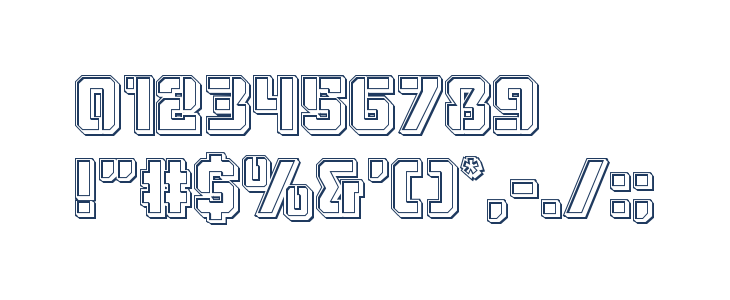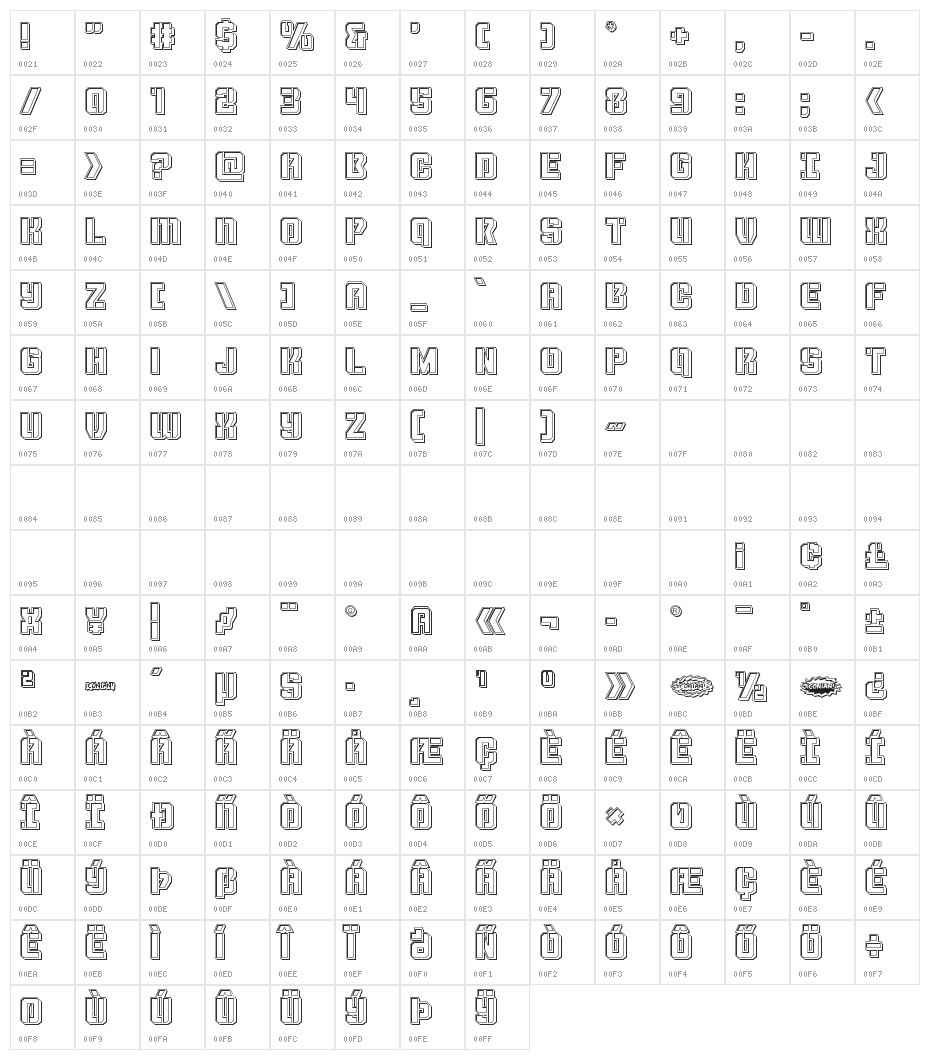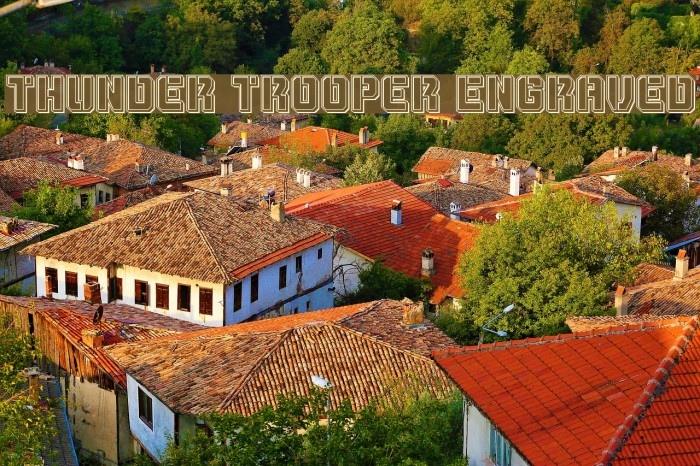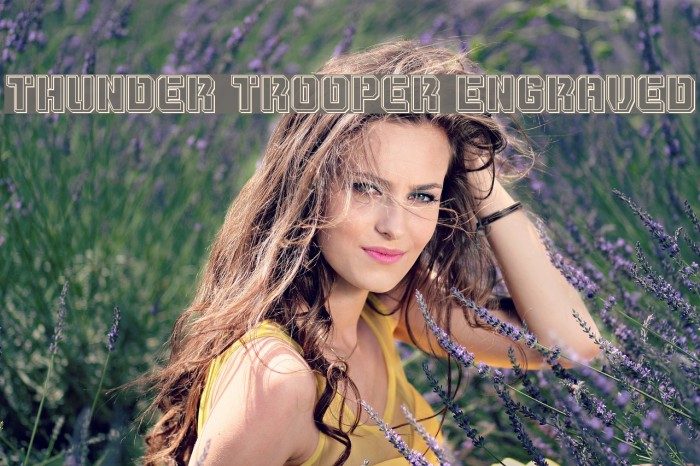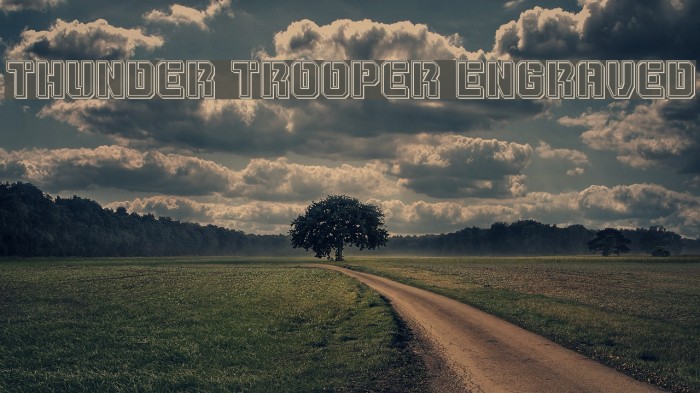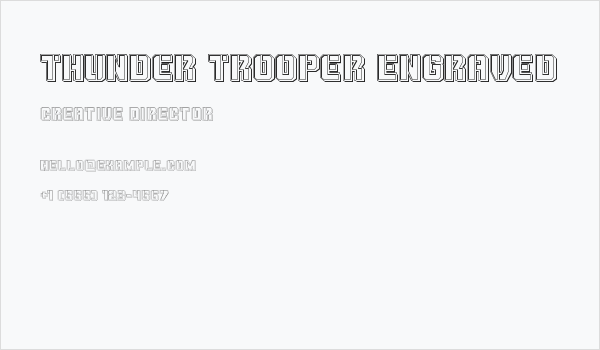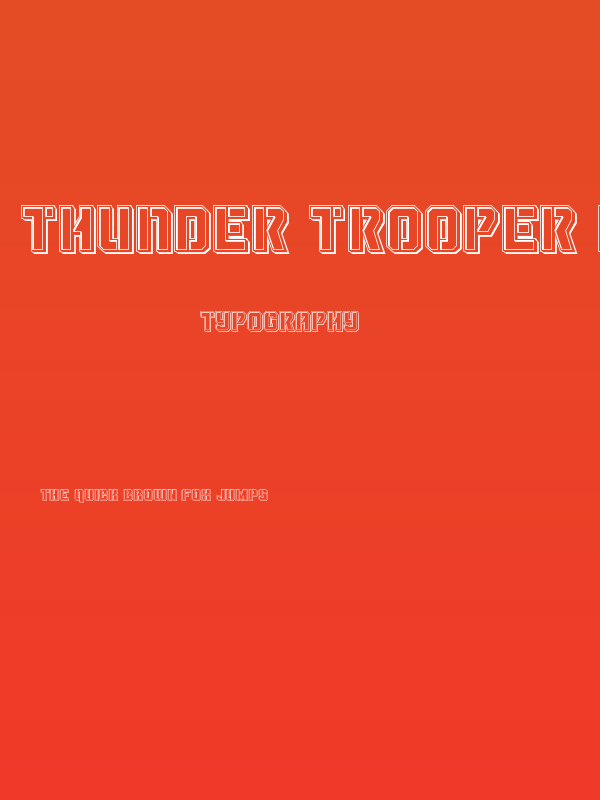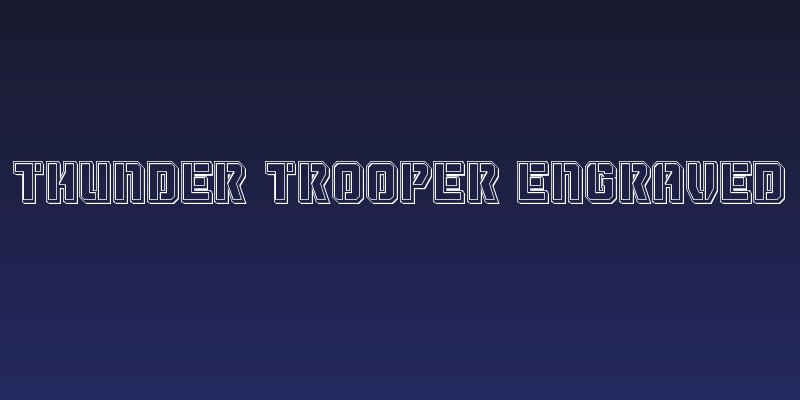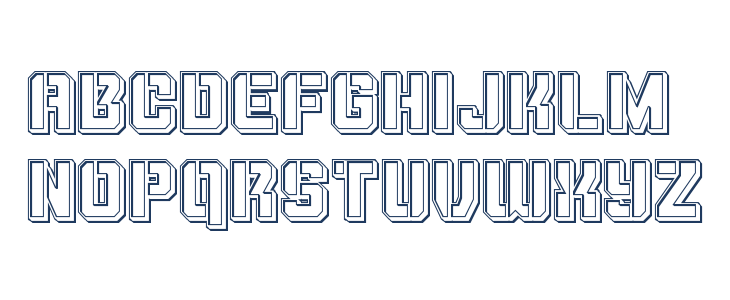
Thunder Trooper Engraved Font
Thunder Trooper Engraved Description
This font features a bold, geometric design with a three-dimensional engraved effect. Each character is outlined with a double line, creating a sense of depth and structure. The uppercase and lowercase letters maintain a consistent blocky style, emphasizing straight lines and sharp angles. The numerals and special characters follow the same design principles, ensuring uniformity across the entire set. This font's unique style is both modern and futuristic, making it ideal for projects that require a strong visual impact.
| Overall Style | Futuristic, Modern |
| Proposed Projects | Ideal for video game titles, sci-fi movie posters, tech branding, and futuristic designs. |